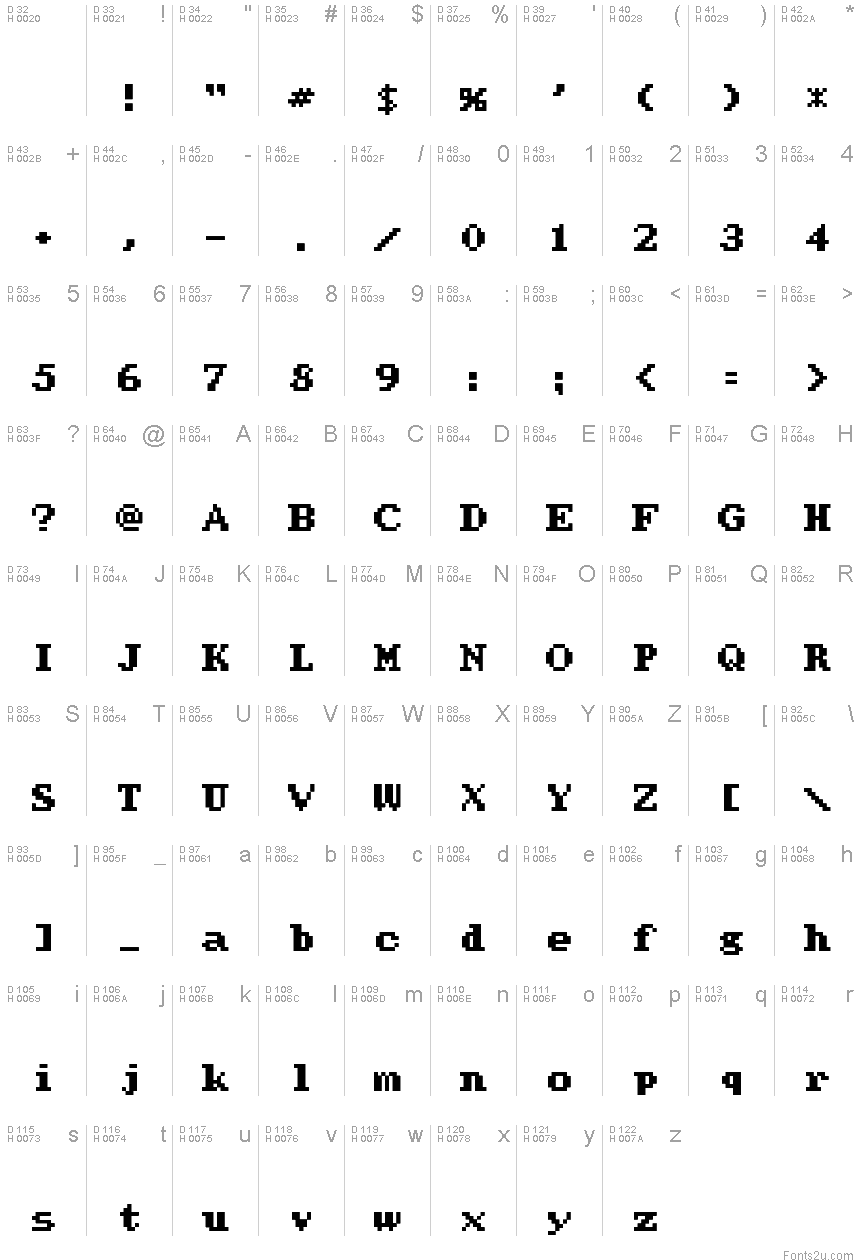
WerdnasReturn
About Werdna's Return;
Werdna's Return is a 1:1, 1px spaced, mostly faithful recreation of the font used in Sir-Tech's Wizardry series, specifically the one used in the series' japanese releases (such as "Wizardry I-II-III: The Story of Llylgamyn", and "Wizardry Gaiden IV: Throb of the Demon's Heart") during the late 90's. This is different from the original computer versions, which used the Apple ][ system font.